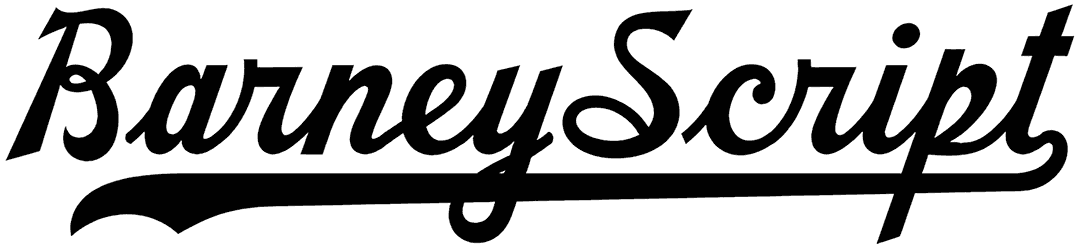
Barney Script Font
Wrap up all your upcoming projects, especially the album covers, ancient book titles, cosmetic packaging, or even stationery with this old-school font, and let it be remembered for a long time. However, Barney Script deprived us of all numbers, sure thing it can be applauded for its traditional and manuscript face, also this baseball font does not fail on the route of accentuating your presentations.
Example: Letter_Use multiple underscores to make longer swashes.